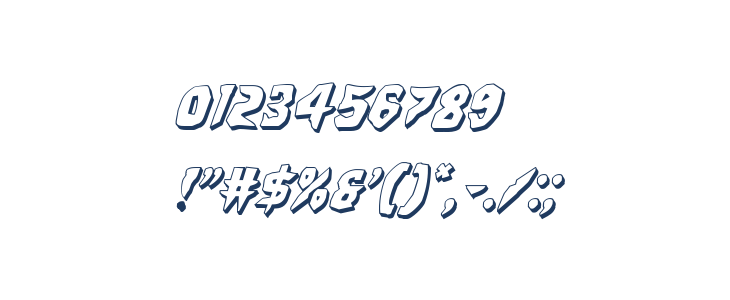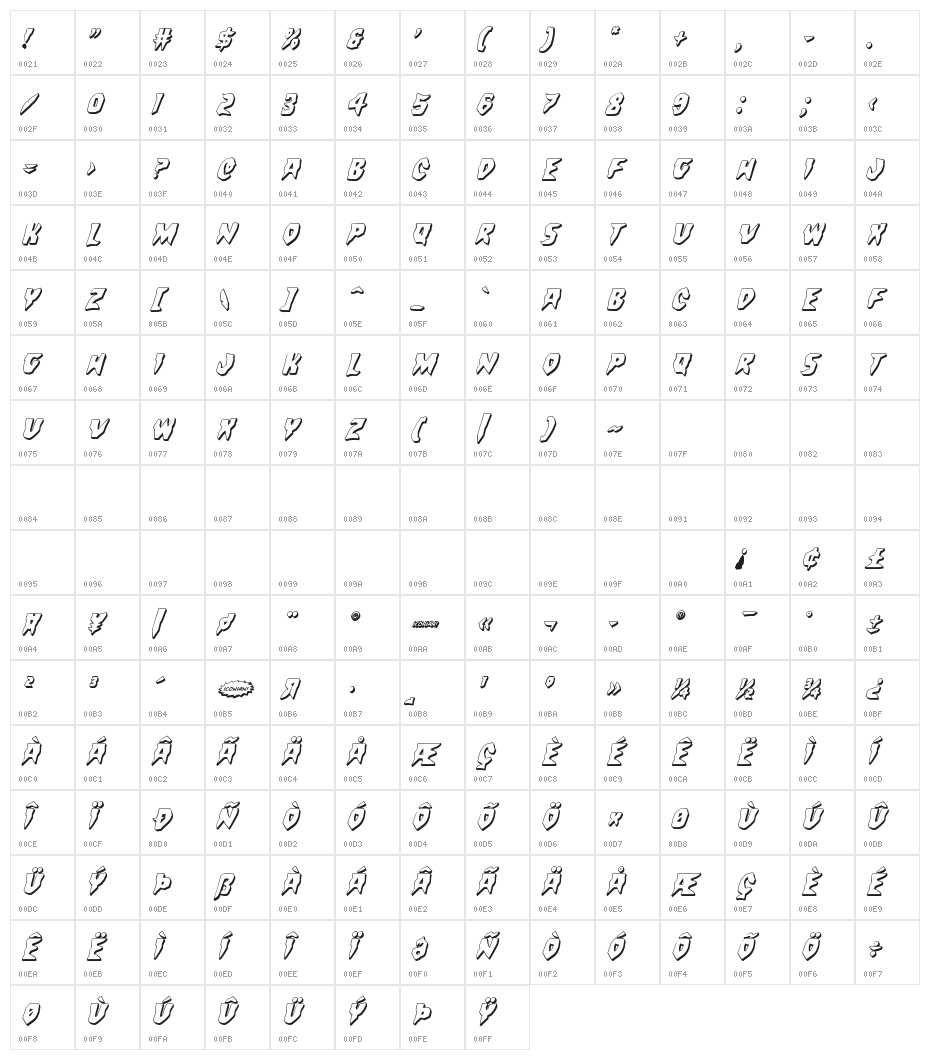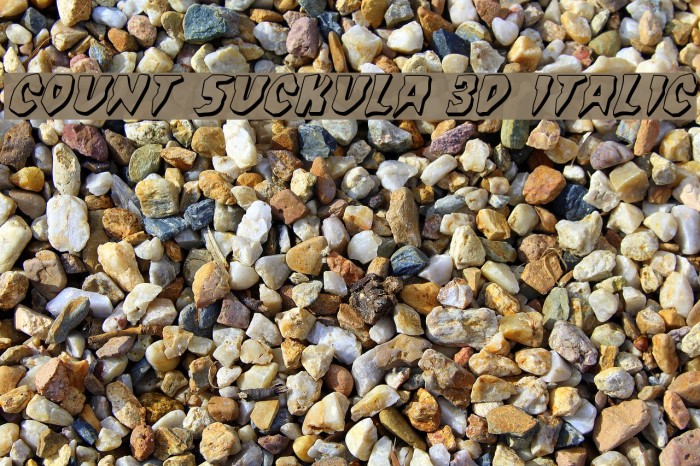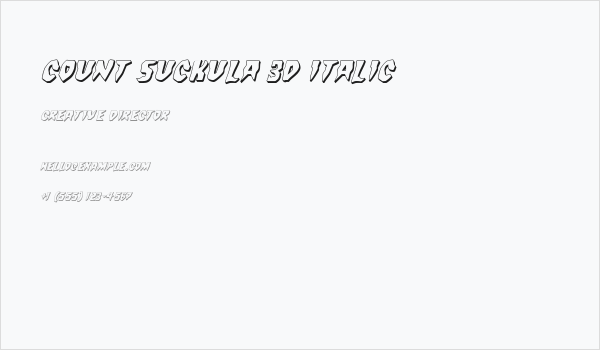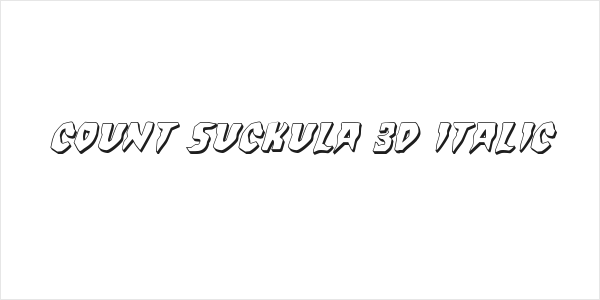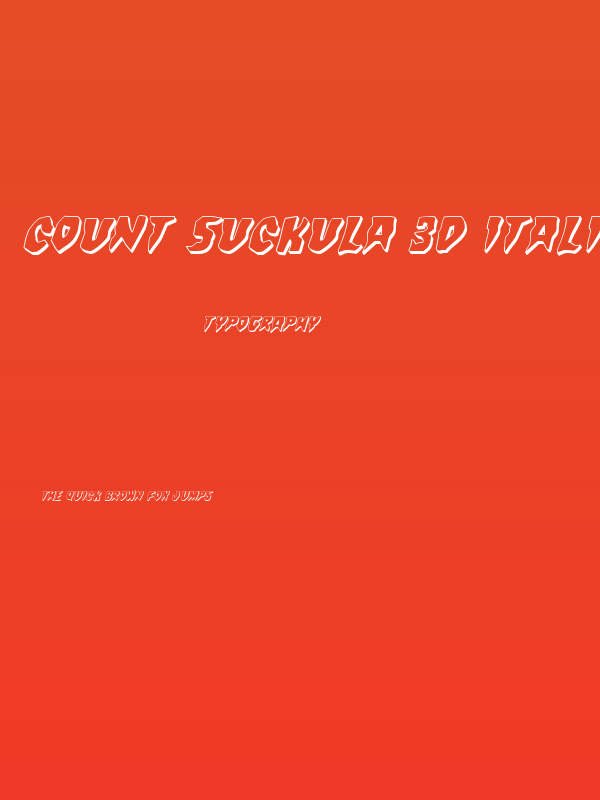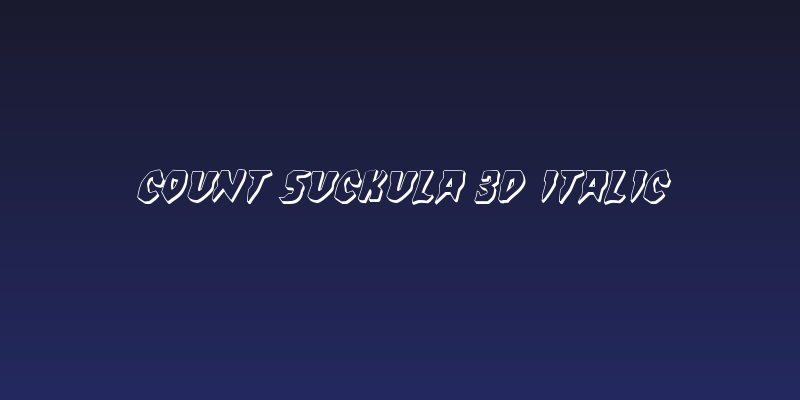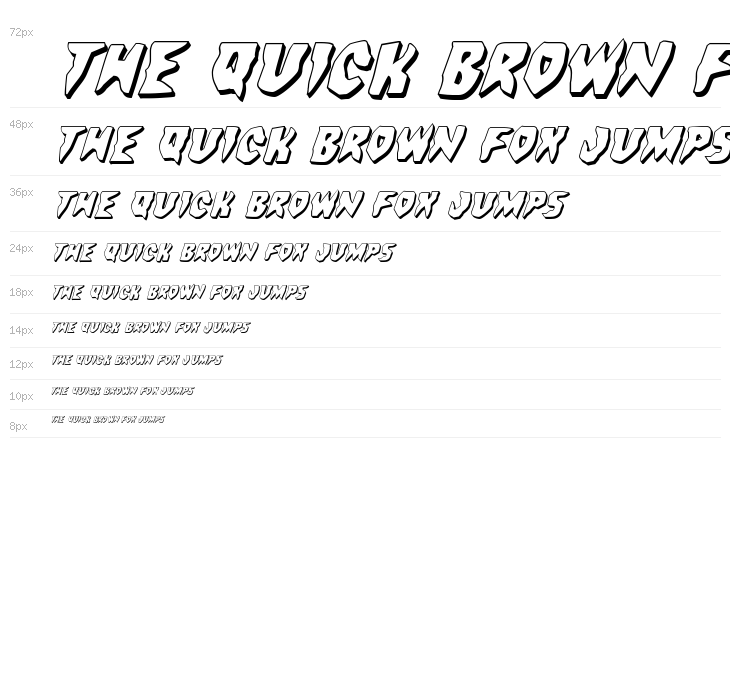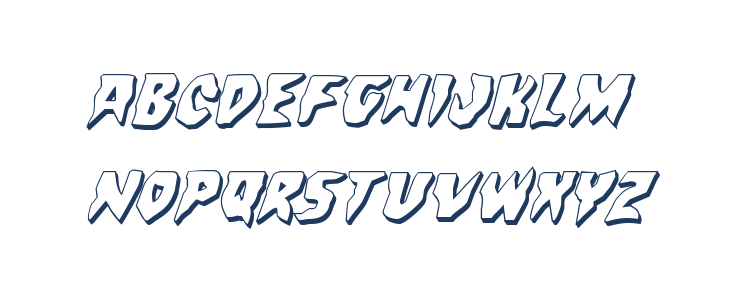
Count Suckula 3D Italic Font
Count Suckula 3D Italic Description
This font features a bold, 3D italic style with a playful and dynamic appearance. Each character is designed with a thick outline that gives a sense of depth and shadow, enhancing its three-dimensional effect. The letters are slightly slanted, adding to the italicized look, and the edges are sharp and angular, contributing to a modern and edgy feel. The font maintains consistent thickness throughout, ensuring readability while still being visually striking. Its unique style makes it suitable for attention-grabbing designs.